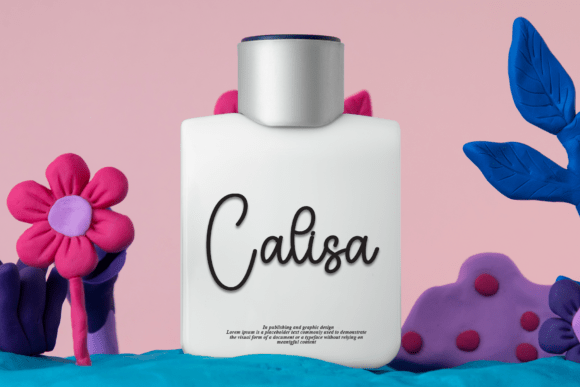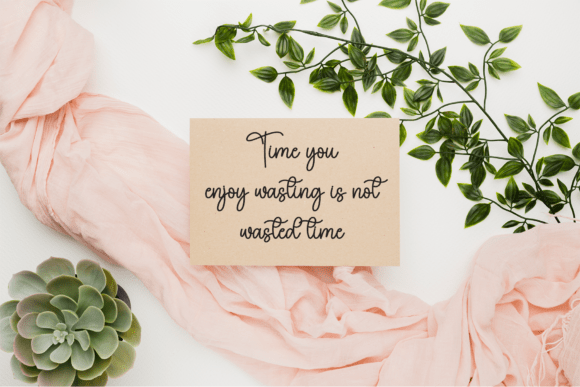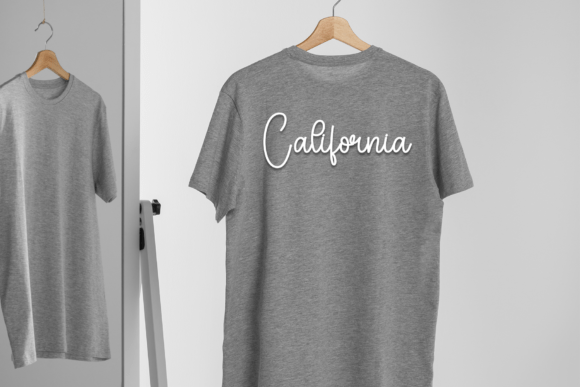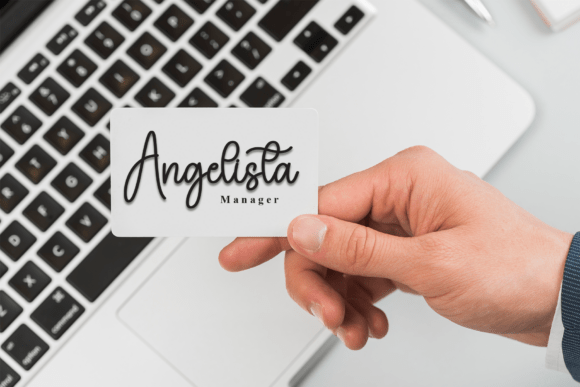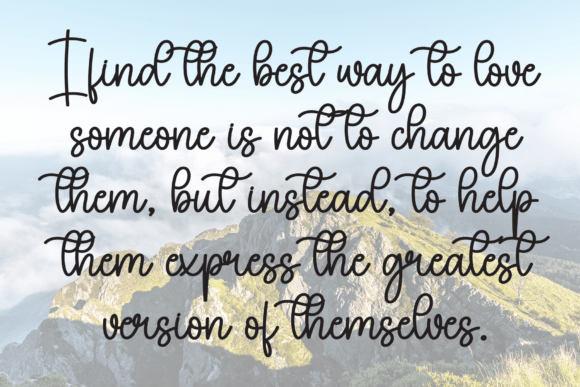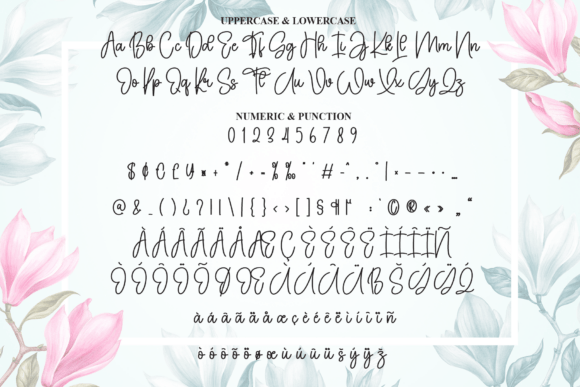
Introduction to Gradually Font
Imagine you’re brainstorming ideas for a client’s wedding invitation – the perfect blend of elegance and whimsy. You scroll through design resources, searching for that elusive font that captures the essence of the occasion. Then, you stumble upon Gradually Font, a stunning handwritten script that instantly elevates your design game.
As a designer, you’re constantly on the lookout for high-quality fonts that can bring a personal touch to your creative projects. The Gradually Font is more than just a design resource – it’s a game-changer. With its transparent background and flowing curves, it adds a sophisticated charm to any project. Whether you’re working on a branding campaign or a social media post, this free download is sure to impress.
But what makes Gradually Font truly special is its versatility. It’s perfect for designers who want to add a touch of playfulness and creativity to their work without sacrificing elegance. In the world of design, having access to a reliable and high-quality font like Gradually Font can be a valuable asset – and we’re excited to dive deeper into its features and benefits.
Key Features of Gradually Font
- High-quality font with a transparent background, ideal for creative projects and design resources.
- Includes a large character set, supporting multiple languages, making it suitable for global design projects.
- Comes in 5 different font sizes, ranging from 12 to 72 points, allowing for flexibility in design applications.
- Features a high-resolution design, suitable for printing and digital use at 300 DPI.
- Unique characteristic: the font’s subtle gradient effect, which can be used to create visually appealing text and titles.
- Perfect for use in various design projects, including logos, branding, and typography-based art.
Honest Review: Gradually Font
I recently had the chance to try out the Gradually Font for a creative project, and I was pleasantly surprised. The high quality of this font is immediately apparent, with crisp lines and smooth curves that make it perfect for a variety of design applications.
The transparent background of the Gradually Font makes it easy to layer and combine with other design elements, and the free download option is a huge bonus for designers on a budget. This is definitely a valuable resource for any designer looking to add some depth and interest to their work.
Here are some of the things that work well with the Gradually Font:
- ✨ High quality and smooth lines
- ✨ Transparent background for easy layering
One potential limitation of the Gradually Font is that it may not be suitable for very large-scale designs, as the font size can become distorted when scaled up. Additionally, the font may not be as versatile as some other options, but overall it’s a great choice for most design projects.
Overall, I was really impressed with the Gradually Font and would definitely recommend it to other designers. With its high quality and free download option, it’s a great addition to any design resource collection.
In Adobe Photoshop or Illustrator, you can import the Gradually Font file and apply it to your text layers. The font’s transparent background allows for seamless integration with your design, making it easy to achieve a high-quality look.
Tips for Getting the Most Out of Gradually Font
Experiment with different font sizes and styles to create a unique look. Combine Gradually Font with other design elements to create a cohesive and visually appealing design.
Gradually Font is perfect for creative projects, such as designing business cards, brochures, or social media graphics. Its high-quality design and transparent background make it a valuable resource for designers and non-designers alike.
Alternatives to Gradually Font
Great Vibes Font is a high-quality, elegant script font suitable for creative projects that require a touch of sophistication. It features a transparent background, making it ideal for overlaying on images or videos. When to use: Wedding invitations, branding materials, or any project that needs a luxurious feel. Compared to Gradually Font, Great Vibes Font is more refined and elegant, perfect for projects that require a high-end look.